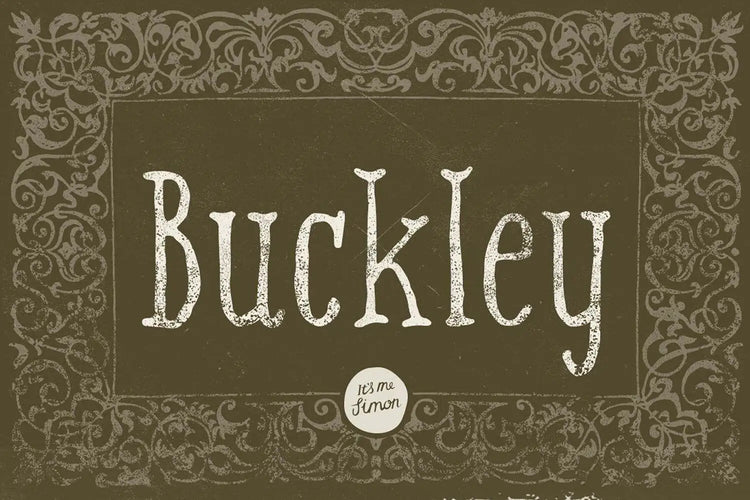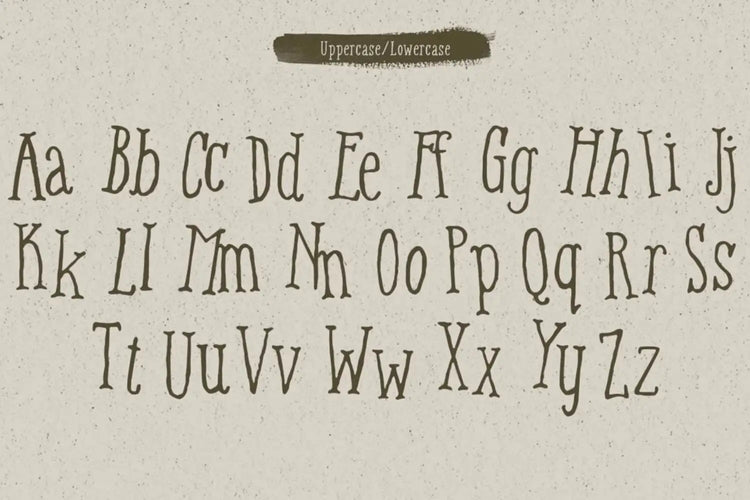
Buckley — Display Serif Font
About Buckley
Buckley font – a true labor of love handcrafted to capture the genuine style of old American clothing.
Buckley font adds an effortless, laid-back vibe to your work, all while keeping the cultural heritage and values of the United States.
It's perfect for that authentic worn-out look. It lets you easily craft memorable designs that resonate with hipster audiences.
If the Buckley font were a celebrity
If the Buckley font were a celebrity, it would be the legendary Bob Dylan. Known for his raw authenticity and poetic lyricism, Buckley font also captures that timeless, original style.